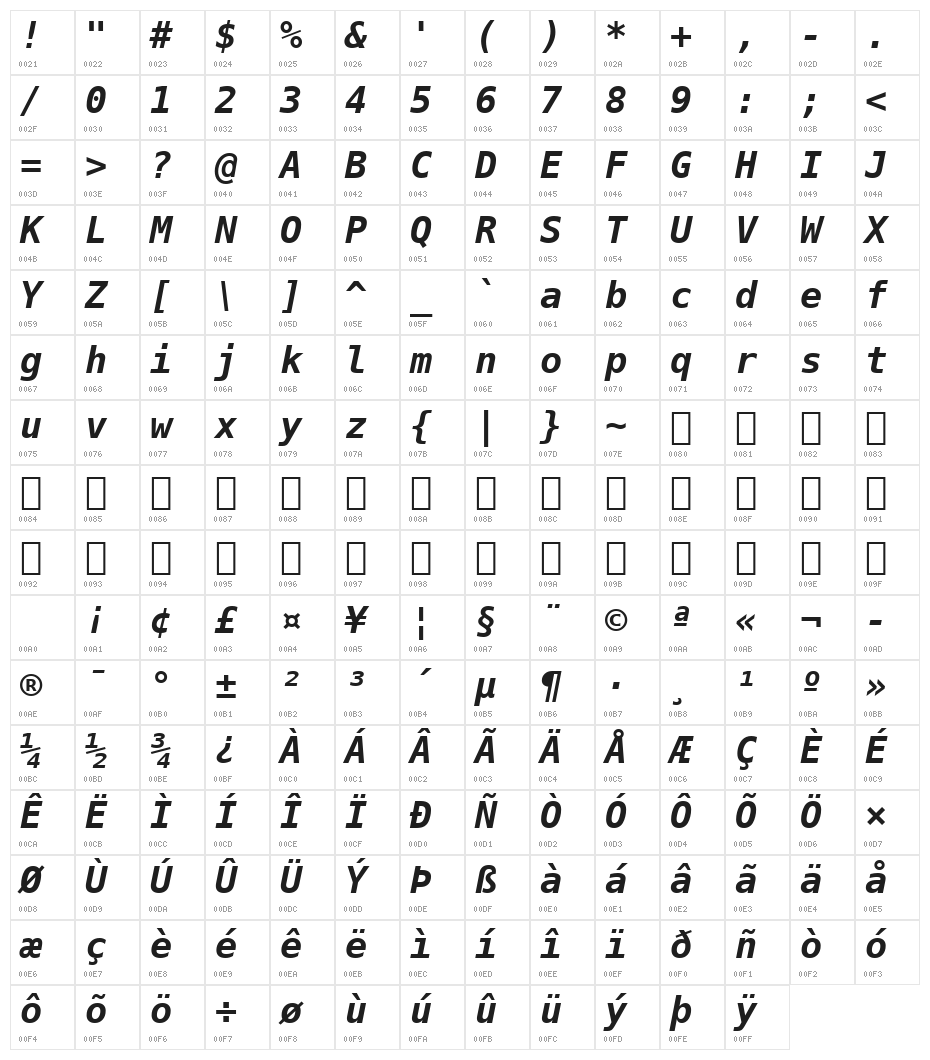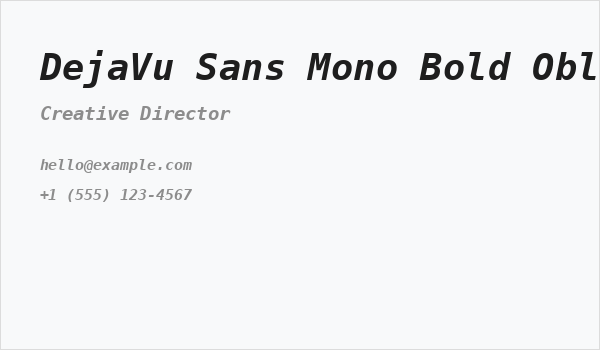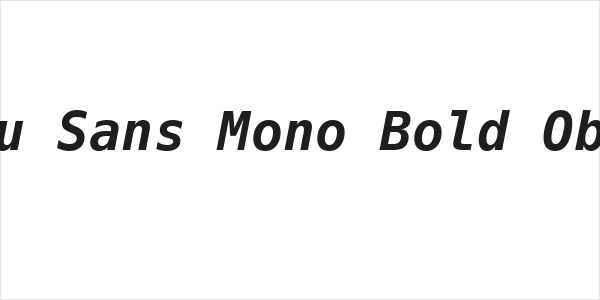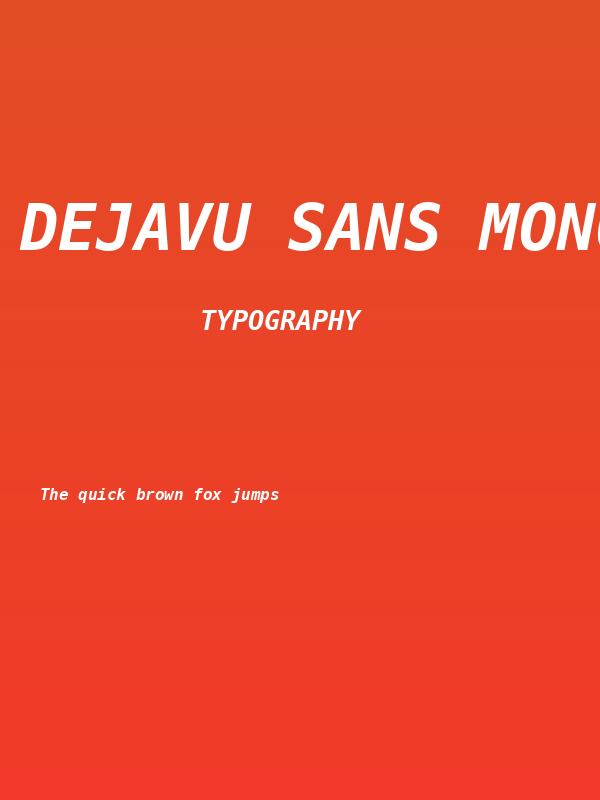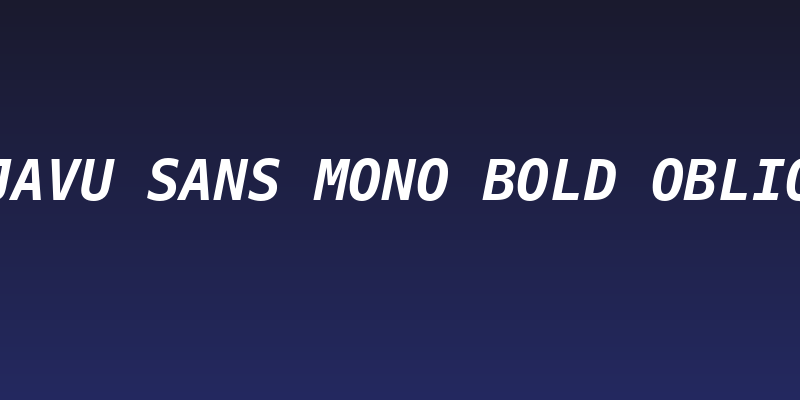
DejaVu Sans Mono Bold Oblique Font
DejaVu Sans Mono Bold Oblique Description
This font presents a bold and oblique style, characterized by its monospaced design where each character occupies the same amount of horizontal space. The letters are slightly slanted, giving an italicized appearance, which adds a dynamic and modern touch. The bold weight ensures strong visibility and readability, making it suitable for various applications. The font maintains a clean and straightforward aesthetic, with consistent stroke widths that provide a uniform look. Its monospaced nature is ideal for coding and tabular data, where alignment is crucial. The characters are well-spaced, offering clarity and ease of reading.
| Use Case | Coding, Technical documentation, Data tables |
| Proposed Projects | Ideal for coding environments, technical documentation, and any project requiring precise alignment, such as spreadsheets or data tables. |